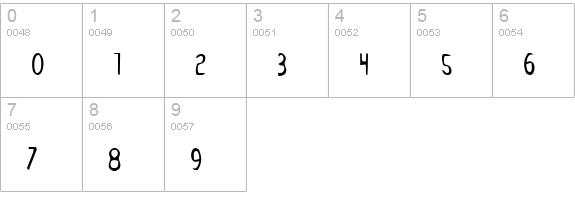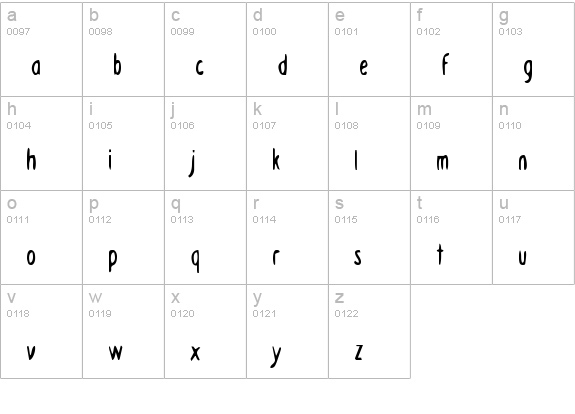
Drafting Table Condensed is a distinctive, condensed-width variant in the Drafting typeface family \xE2\x80\x94 well suited to design and typography projects.
Drafting Table Condensed font is a sleek and modern typeface that exudes professionalism and creativity. Its condensed design makes it perfect for fitting more text into limited spaces without sacrificing readability or style. The clean lines and sharp edges give this font a contemporary feel, making it ideal for a wide range of design projects. Whether you're creating a logo, signage, or publication, Drafting Table Condensed font will add a touch of sophistication to your work. Best of all, this font is available for free download at FontsMarket.com. Don't miss out on the opportunity to enhance your projects with this versatile and stylish typeface. Download Drafting Table Condensed font today and elevate your designs to the next level.